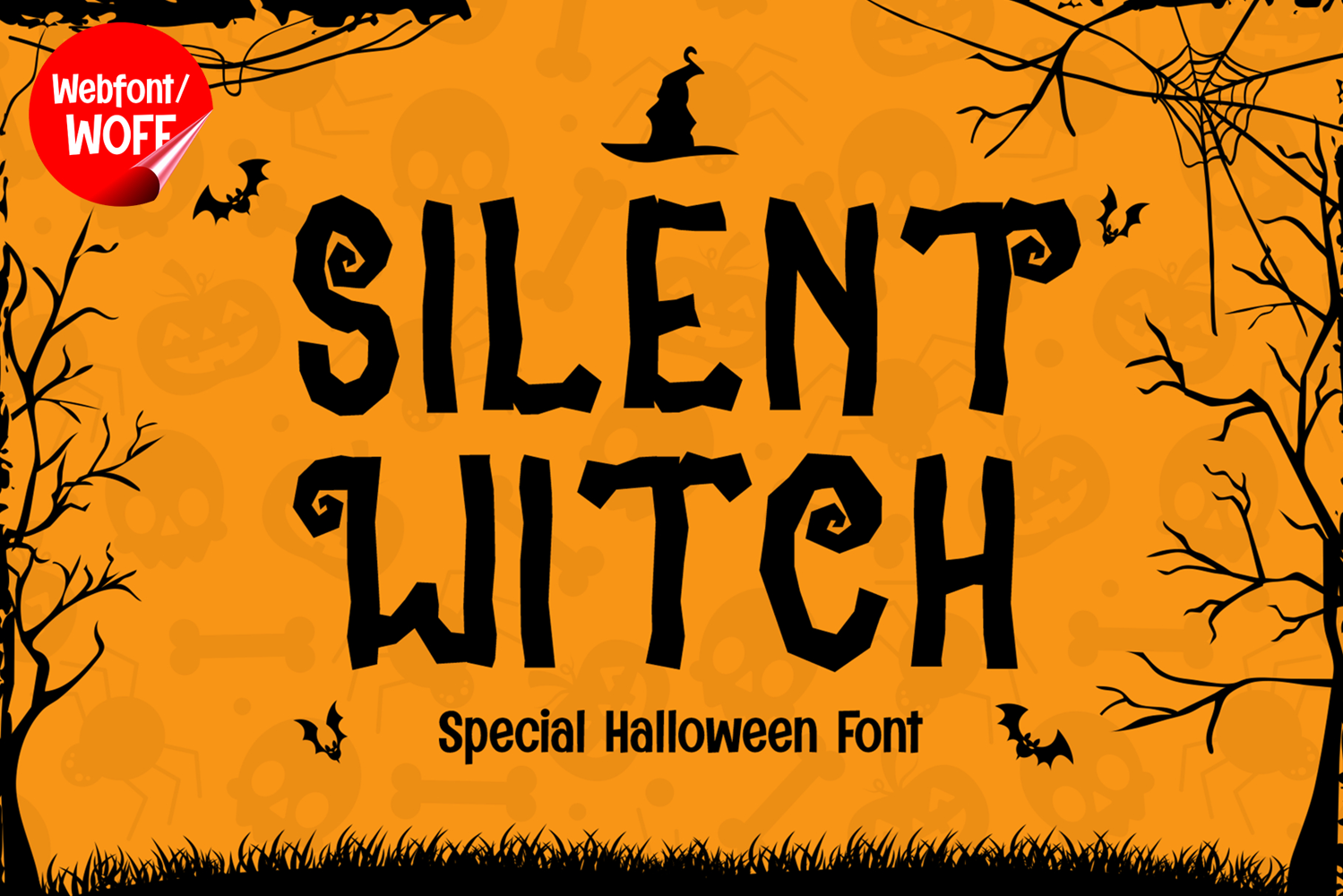
Silent Witch | Halloween Decorative Webfont for Spooky Ideas
Silent Witch is a Halloween decorative webfont designed to bring a dark, mystical, and enchanting atmosphere into modern website design. Inspired by witchcraft themes, eerie folklore, and magical elements, this font features unique decorative letterforms with subtle curves and mysterious details. It is an excellent choice for projects that aim to create a spooky yet elegant visual experience.
Silent Witch includes a complete set of uppercase characters designed with decorative Halloween-inspired shapes. The letterforms combine sharp edges with flowing curves, creating a balanced mix of elegance and darkness. These characteristics make it ideal for headlines, banners, hero sections, and featured content where a magical and haunting presence is needed.
In addition to letters, the font includes numbers and punctuation, allowing flexible usage across various parts of a website. It works well for Halloween campaigns, themed promotions, event announcements, and creative storytelling layouts. Each character maintains a consistent decorative style, ensuring a cohesive and unified visual identity throughout the design.
With multilingual support, Silent Witch includes a wide range of accented characters, making it suitable for international websites and global audiences. This allows content to be displayed clearly across different languages while preserving the mysterious and atmospheric aesthetic.
The Halloween decorative style of Silent Witch makes it especially suitable for seasonal websites, haunted attractions, fantasy blogs, creative portfolios, and entertainment platforms. Its mystical and enchanting design adds depth and personality, helping websites stand out with a unique and memorable look. The decorative elements enhance storytelling and visual engagement.
Despite its stylized and decorative appearance, Silent Witch is designed with readability in mind. The spacing and proportions are carefully balanced to ensure clarity, particularly in display sizes. This makes it effective for impactful headings and short content elements where both style and usability are important.
Silent Witch is a webfont that combines decorative Halloween aesthetics with modern digital performance. Its mystical shapes, elegant details, and spooky character create a distinctive typographic presence that enhances website design. For projects that require a magical, eerie, and visually engaging font, Silent Witch offers a captivating and effective solution.